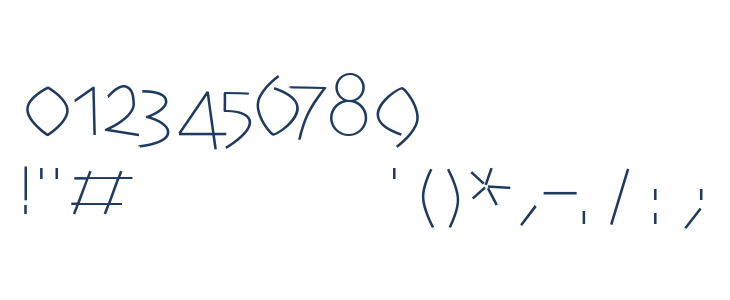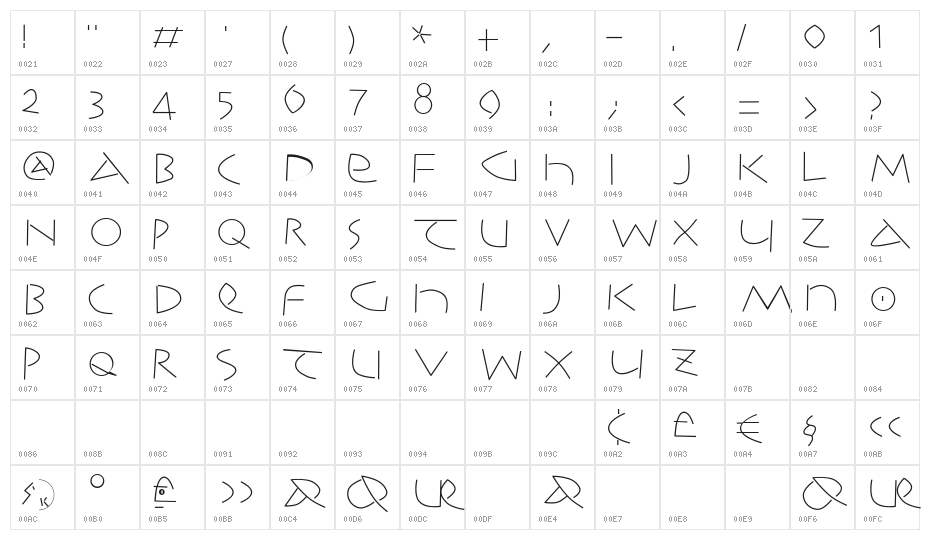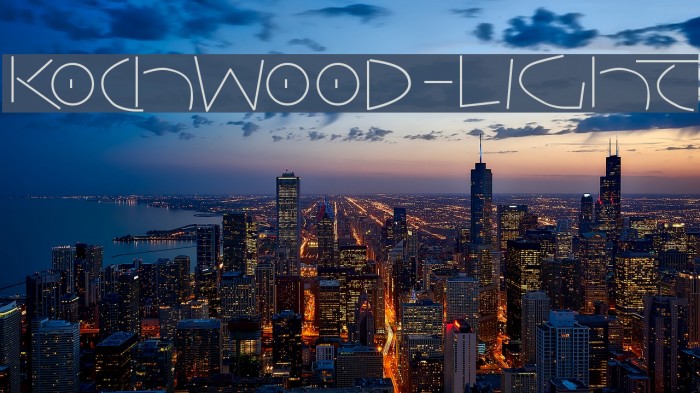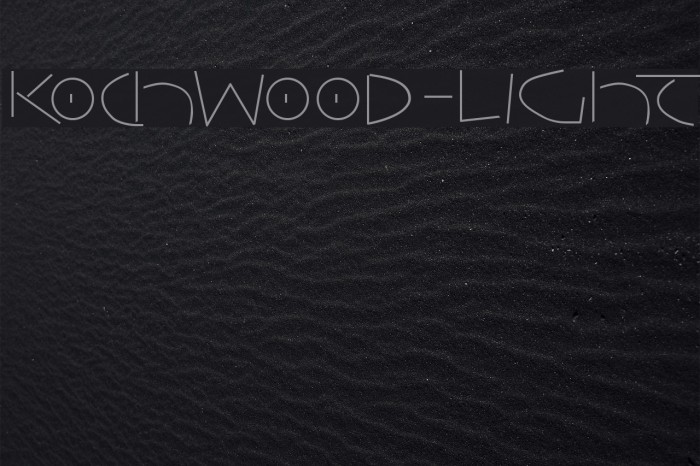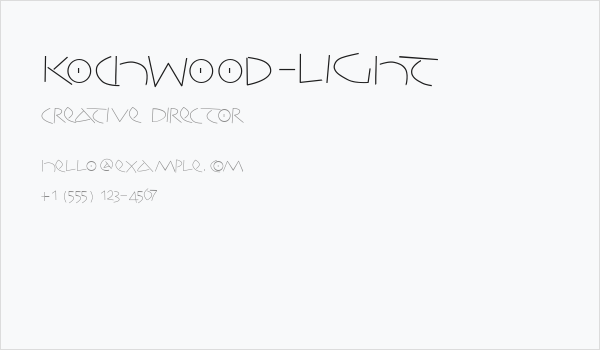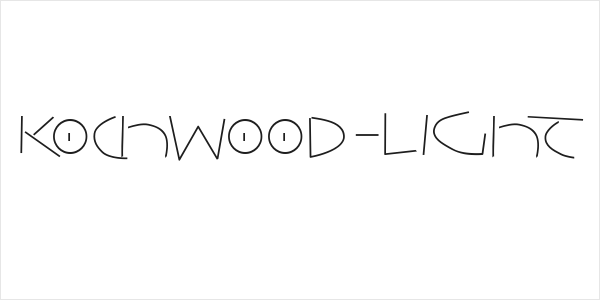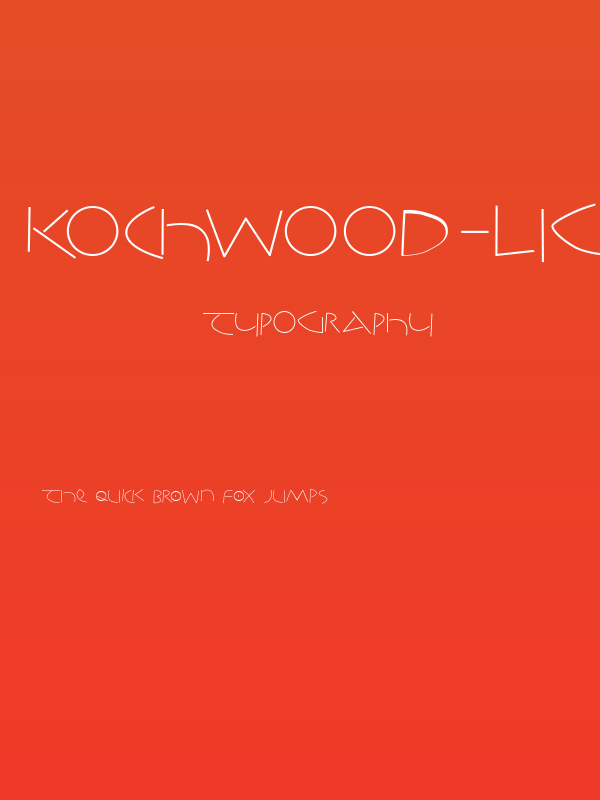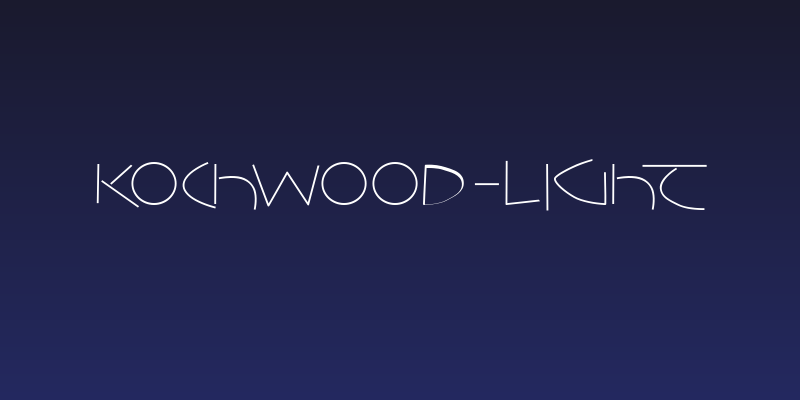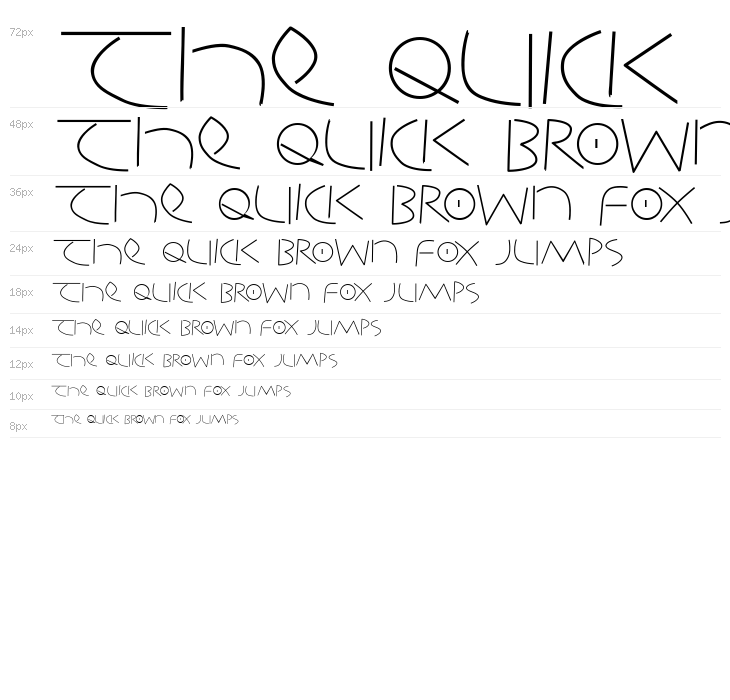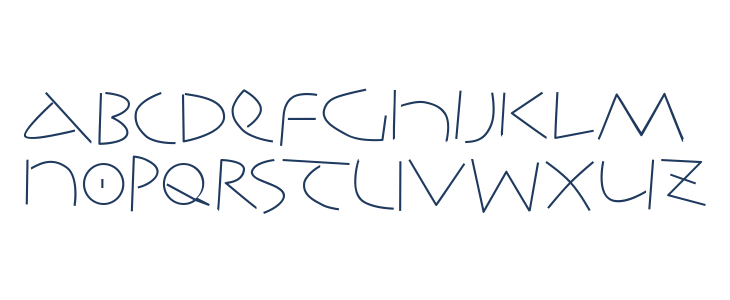
Kochwood-Light Font
Kochwood-Light Description
This font features a unique blend of geometric and organic shapes, creating a modern and artistic appearance. The characters are composed of clean, sharp lines with subtle curves, giving it a futuristic and sleek look. The uppercase letters are particularly angular, while the lowercase letters maintain a consistent flow, adding to its distinct style. The numerals are designed with a similar aesthetic, ensuring uniformity across the font. Special characters are crafted with the same attention to detail, making this font versatile for various design needs.